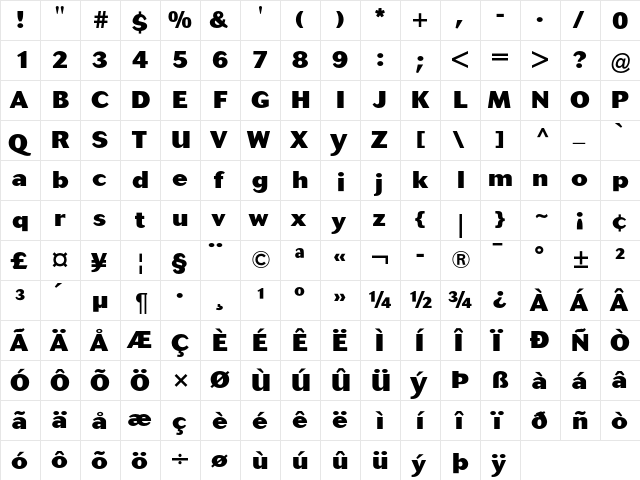
Cosmos Extra Bold
Design Context for Cosmos Typeface
Cosmos offers clean, dependable letterforms without strong stylistic allegiance, making it a practical choice for designers who need flexibility. The heavy weight commands attention and anchors typographic hierarchies.
Pro Tip: Use Cosmos in both headline and body roles to test its range before committing to a single application.